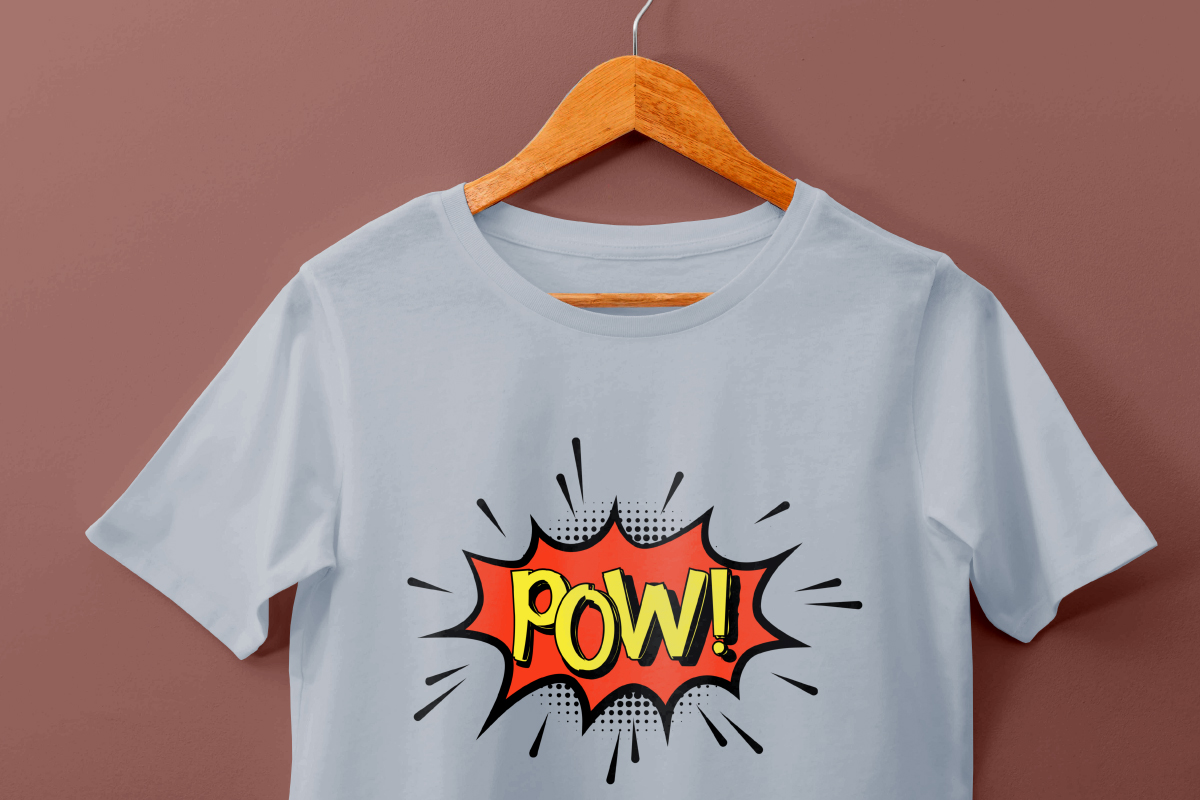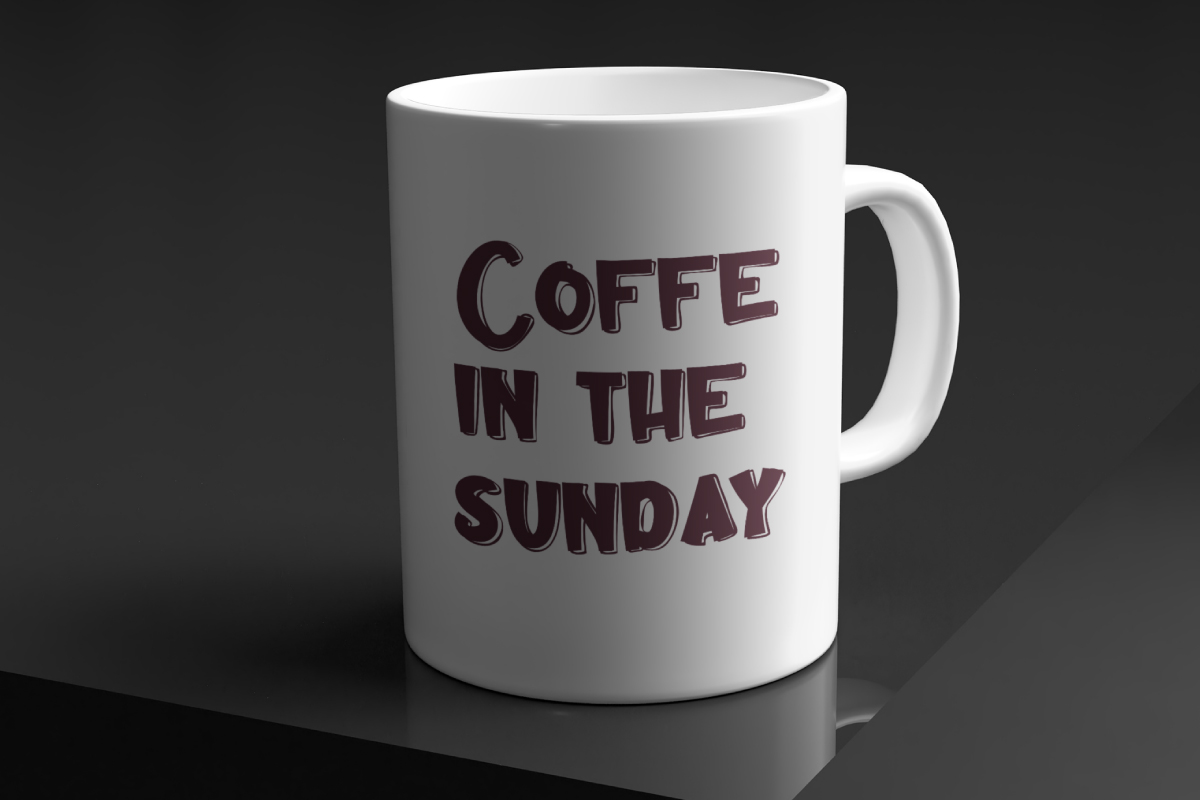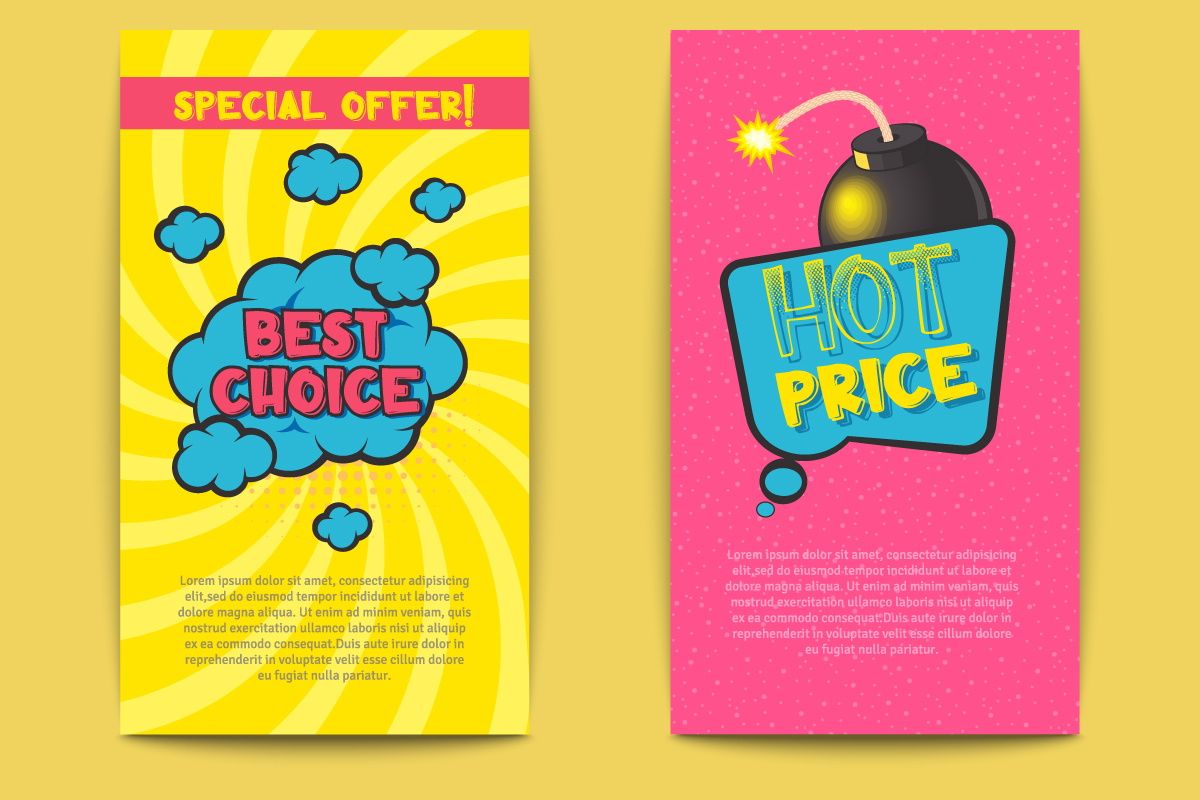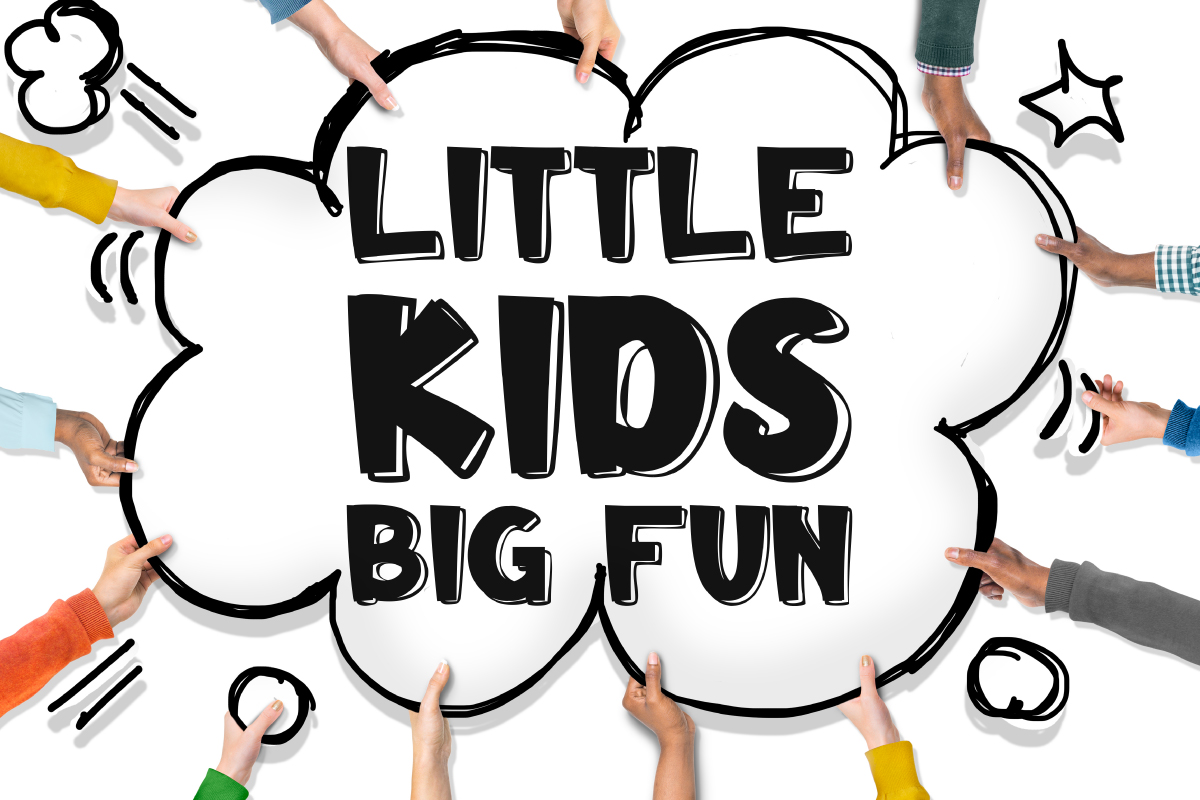
Comik Font
Comik Display Font
It’s a comic display font with fun and unique cartoon style. This font is carefully crafted on each letter so we can make sure it looks good and delivers the perfect base case. This one should make your designs instantly professional and jaw-dropping!
Comik Cartoon Font includes full set of Uppercase and Lowercase for Basic Character, Numerals and Punctuation. This font has 3 styles, Regular, Outline and Texture. It’s here to create colorful and joyful displays that will complete your extraordinary projects. Comik Font will be great for fashion, flyer, food, games, kids etc